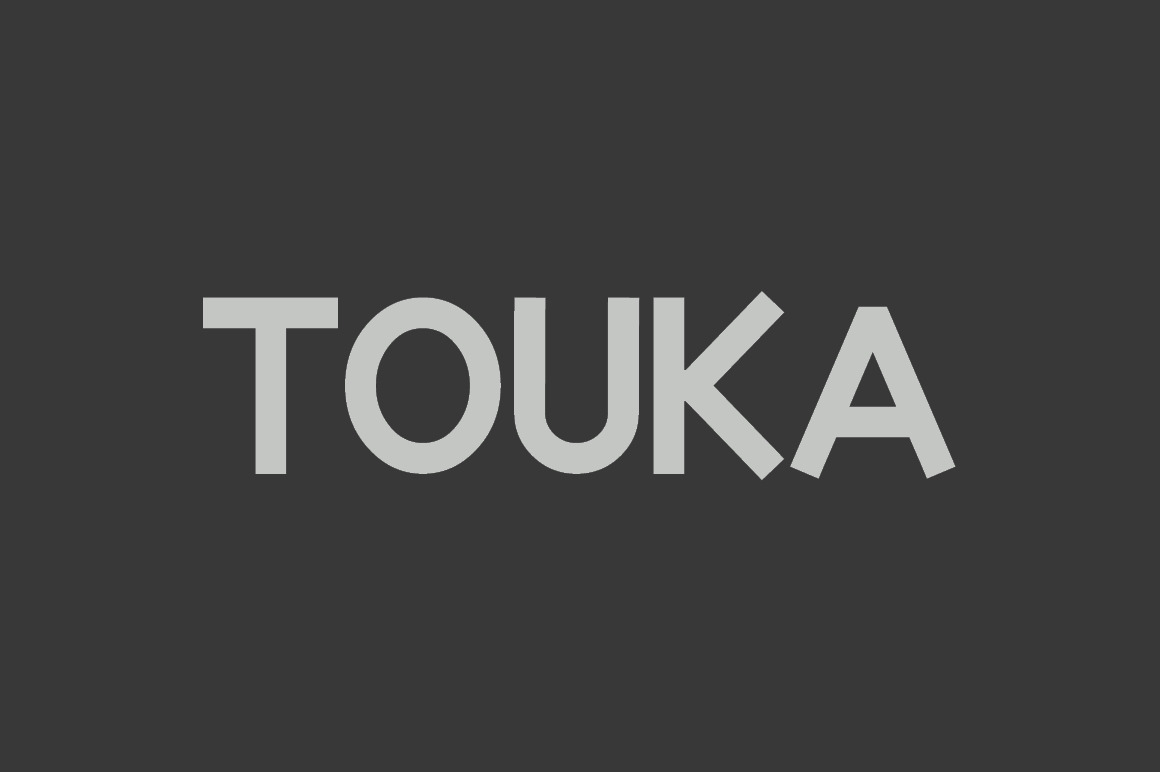
Touka Font
Here's Touka: a display font with good looking and readable body. Perfect for sports logos, headlines or whatever you want because is a sexy font.